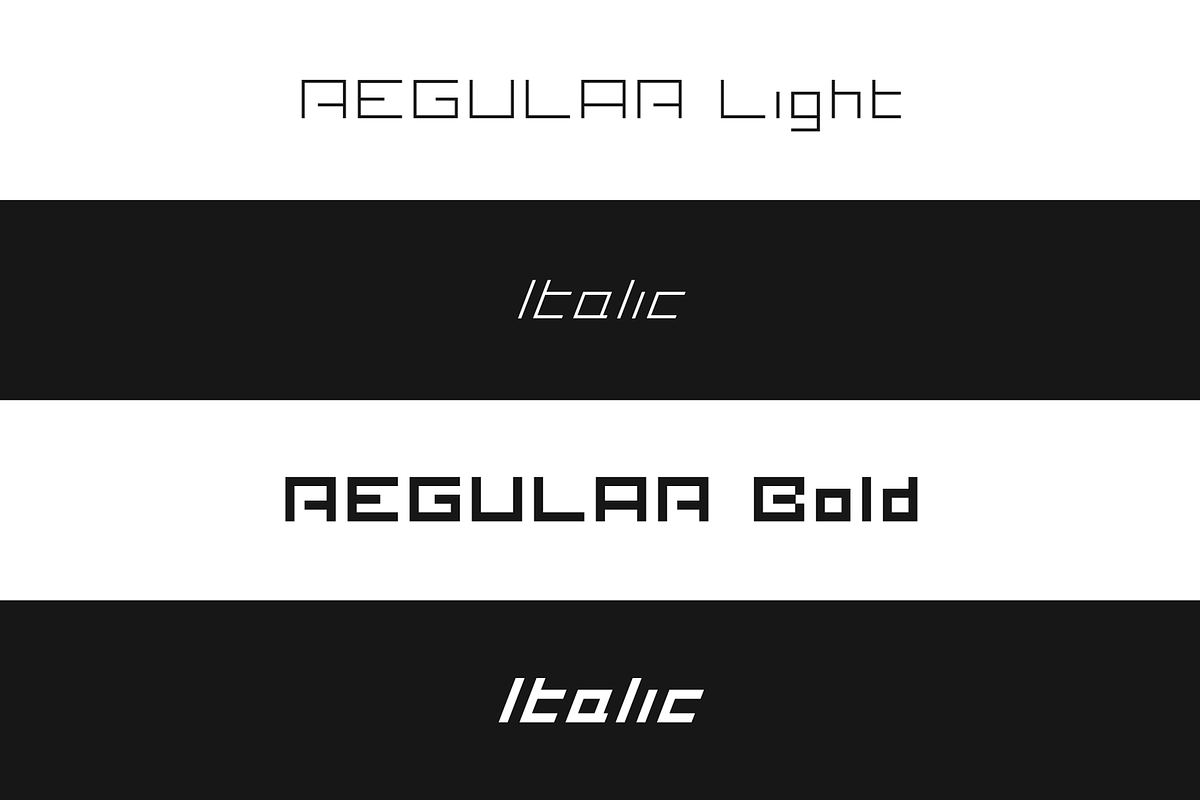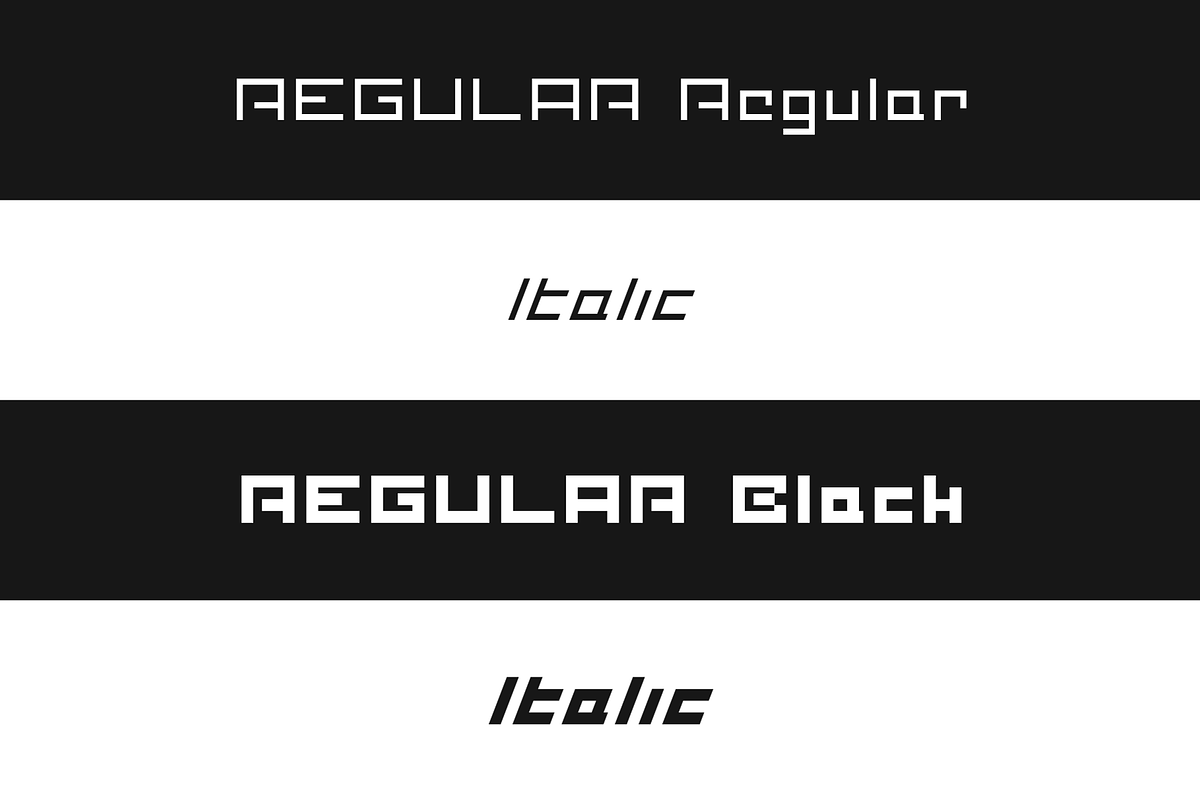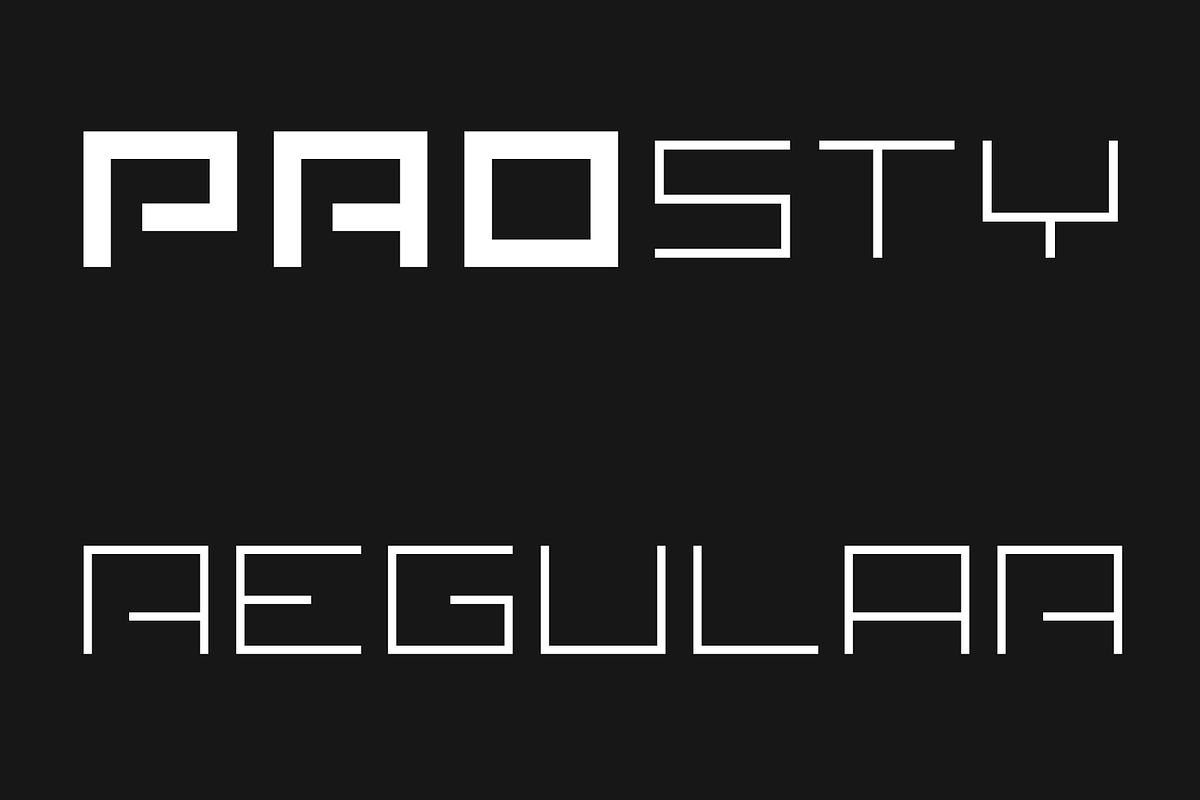
PROSTY Regular
PROSTY Regular is a geometric, minimalistic, display typeface.
It contains both uppercase and lowercase characters, which makes it useful for display, titling, captions but also for composing short, intermediate, and longer texts, which is a very interesting and useful combination here. It was created carefully with details in mind.
PROSTY contains a large number of characters as well as multilingual support.